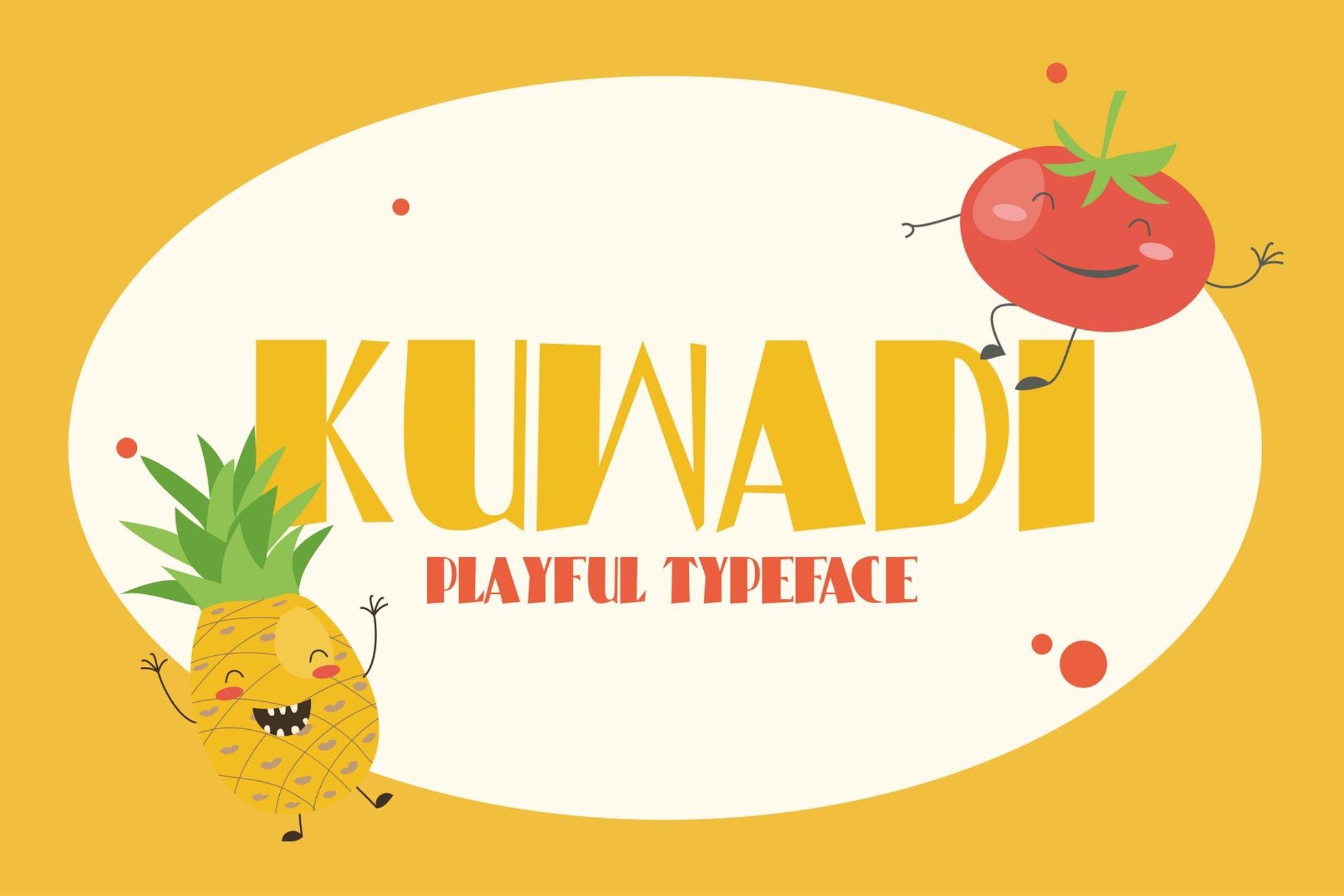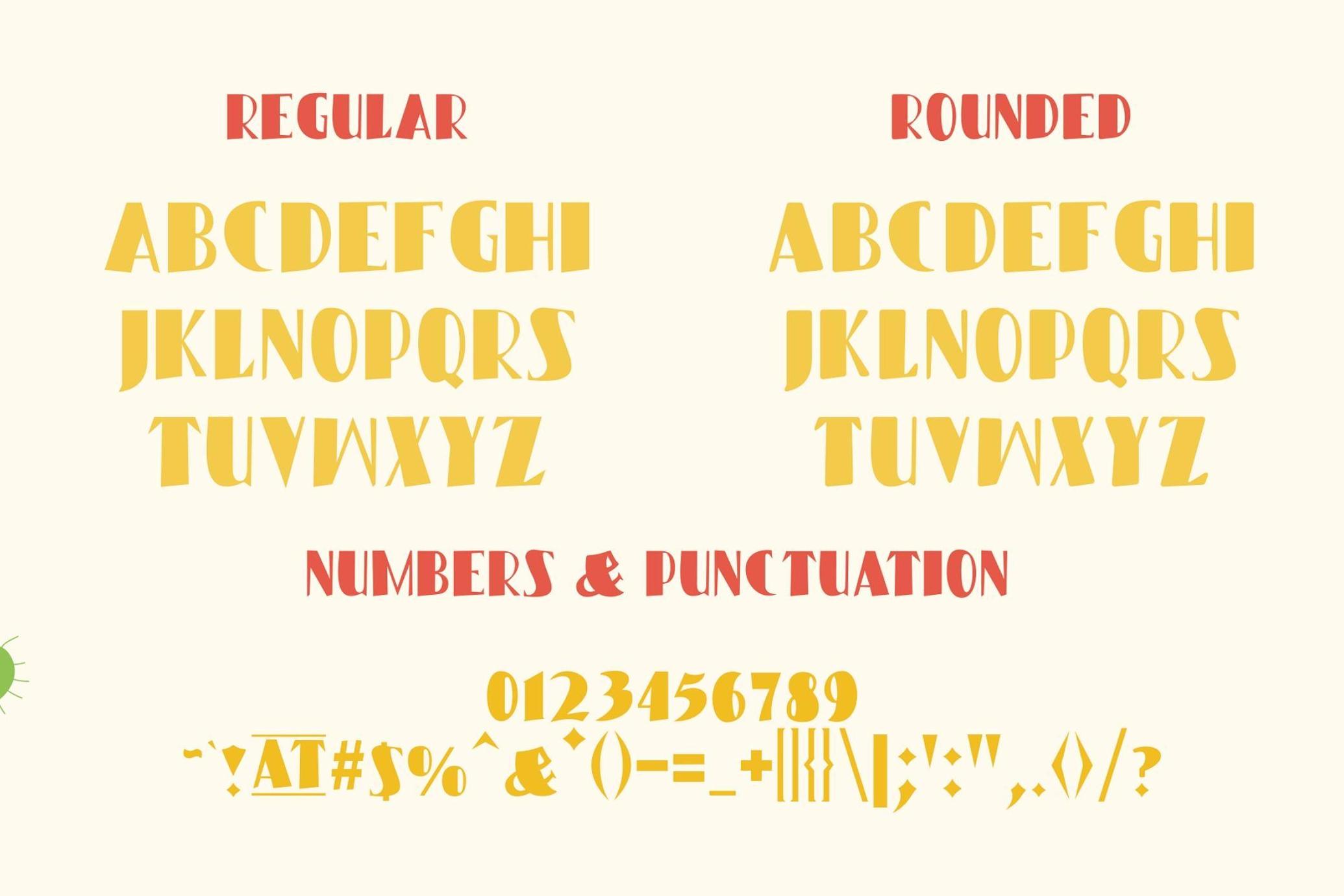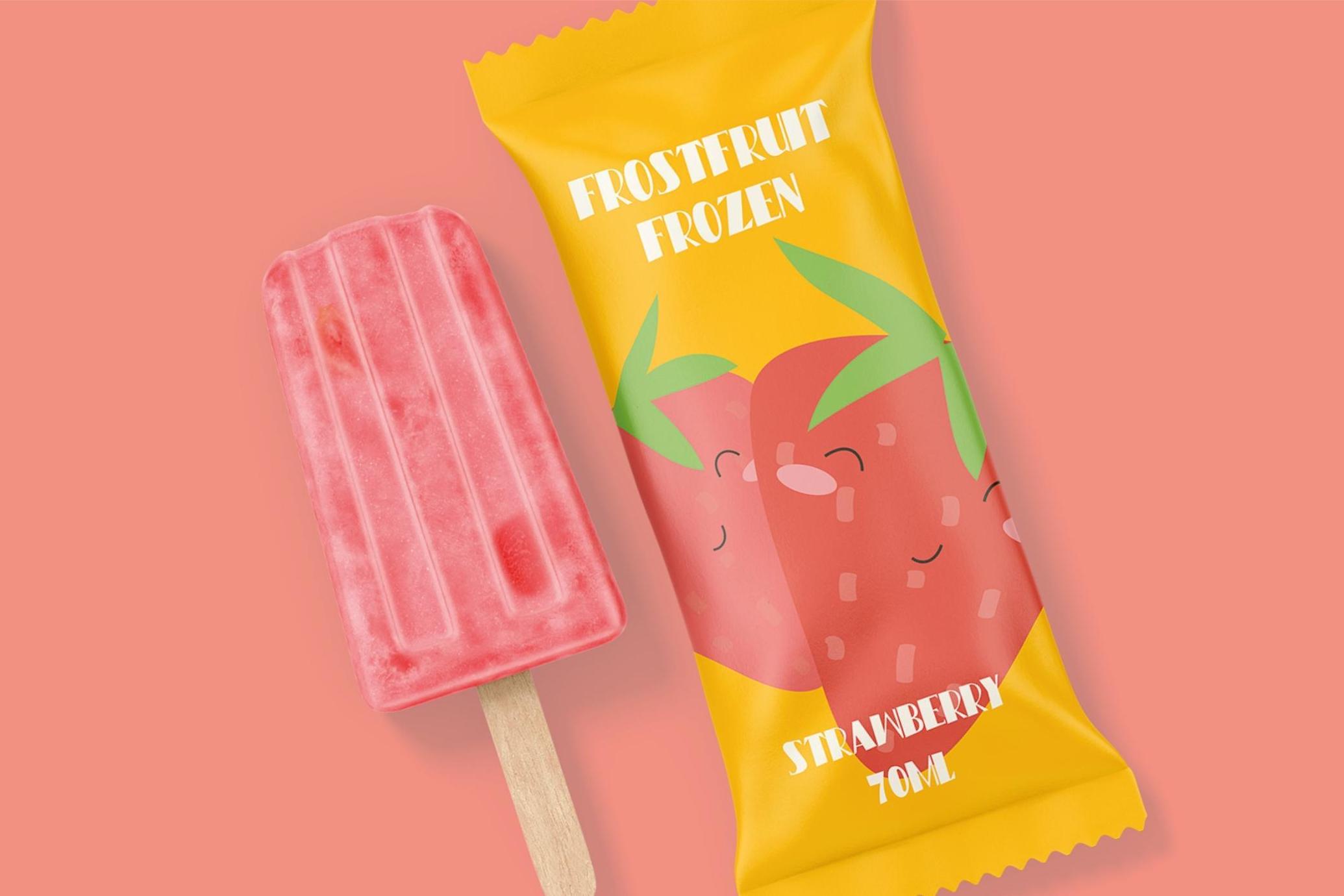
Kuwadi - Playful Kids Font
Kuwadi is a whimsically delightful font designed with the spirit of childhood imagination and fun at its heart. Crafted to capture the essence of playful adventures and boundless creativity, Kuwadi is an adorable font that resonates with the joy and innocence of kids' earliest years.
Its characters are rounded and bubbly, exuding warmth and friendliness with every letter and symbol. Each stroke and curve has been meticulously shaped to ensure readability while infusing a sense of playfulness, making it perfectly suited for children's books, educational materials, party invitations, and any project aiming to convey joy and whimsy.
Kuwadi embodies a casual, yet enchanting style, making it a go-to choice for designers looking to add a touch of charm and affection to their creations. With its appealing appearance and engaging character, Kuwadi not only speaks to young audiences but also to those young at heart, bringing a smile to faces and adding a playful flair to any design project.